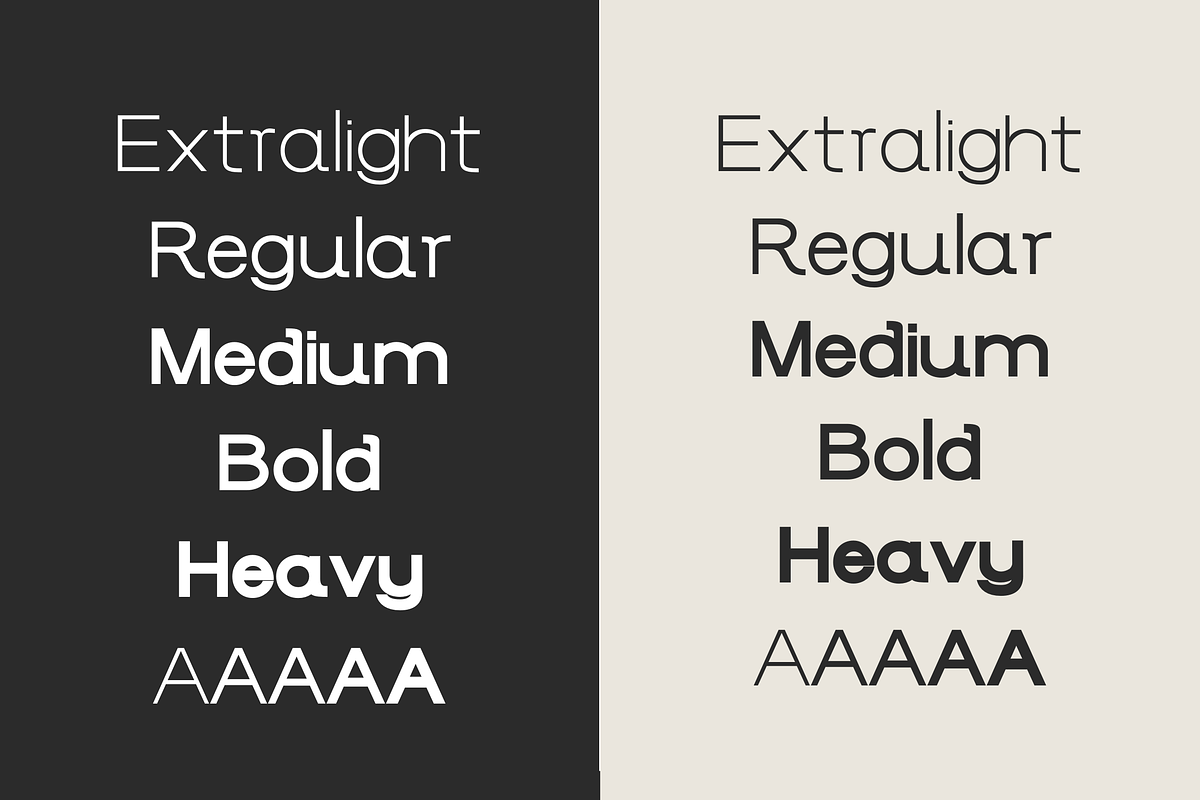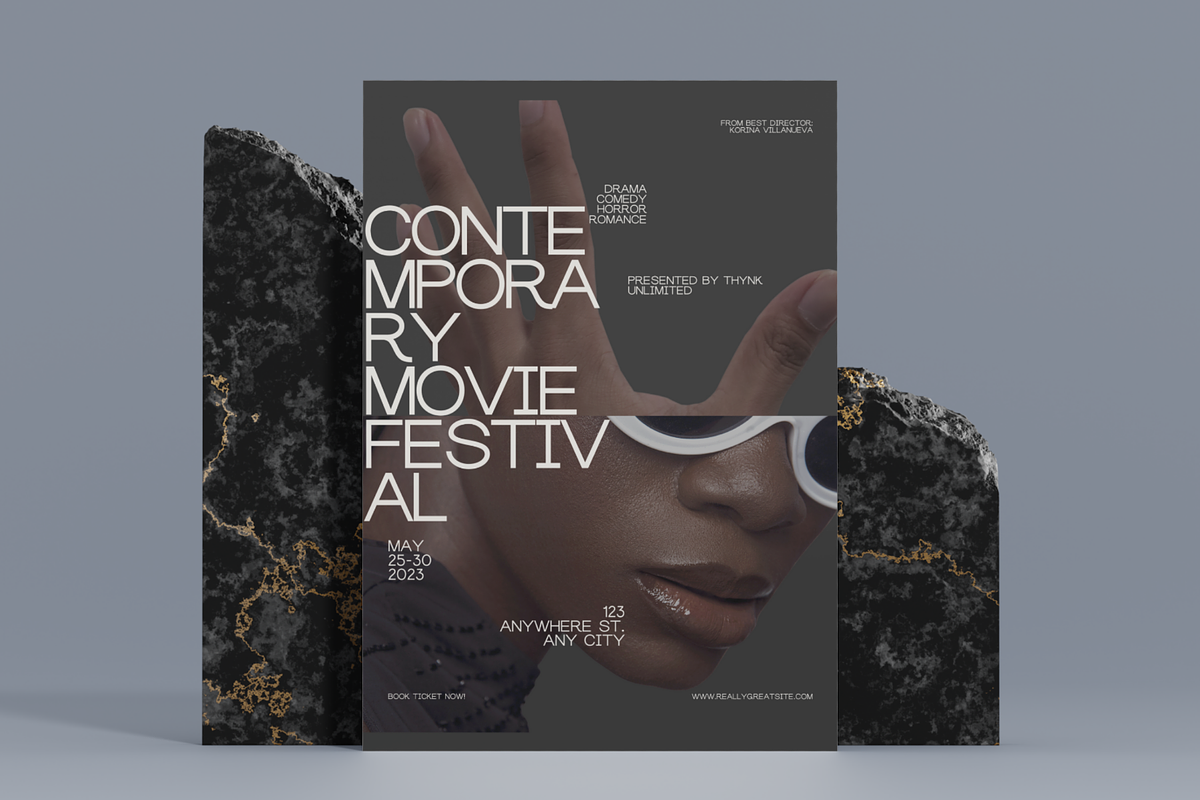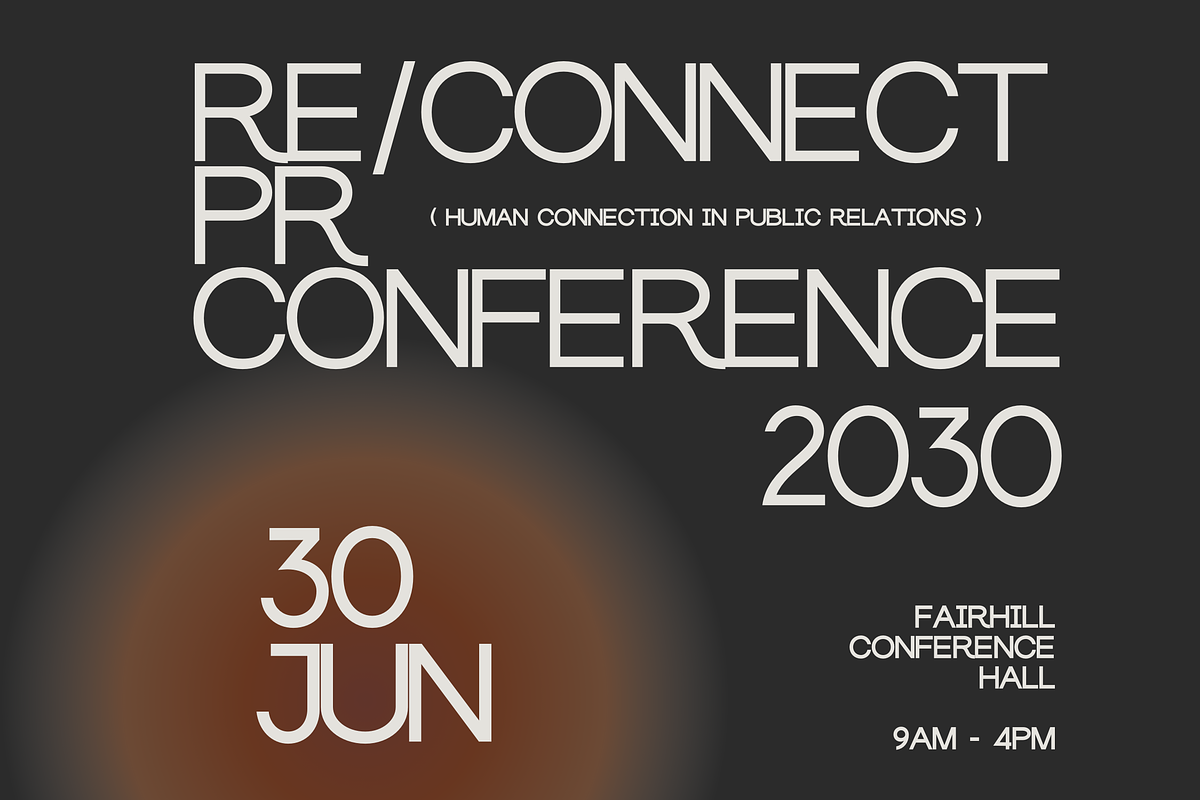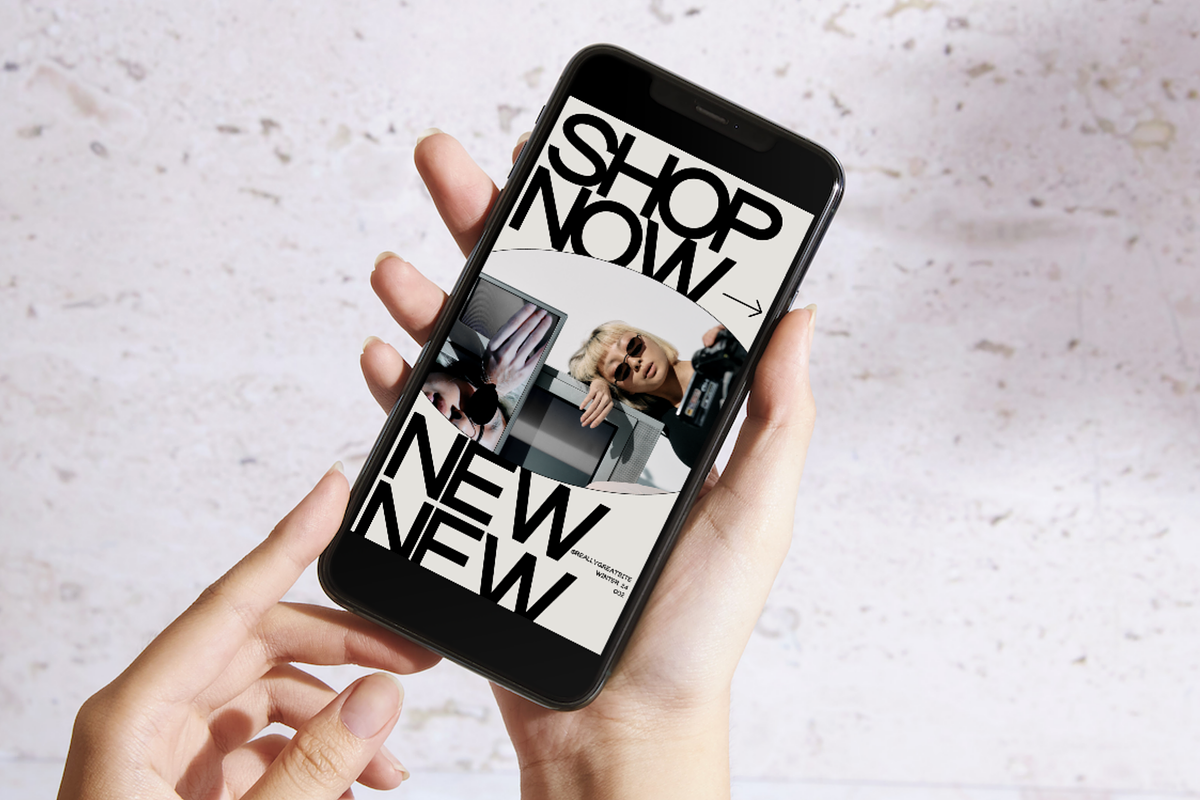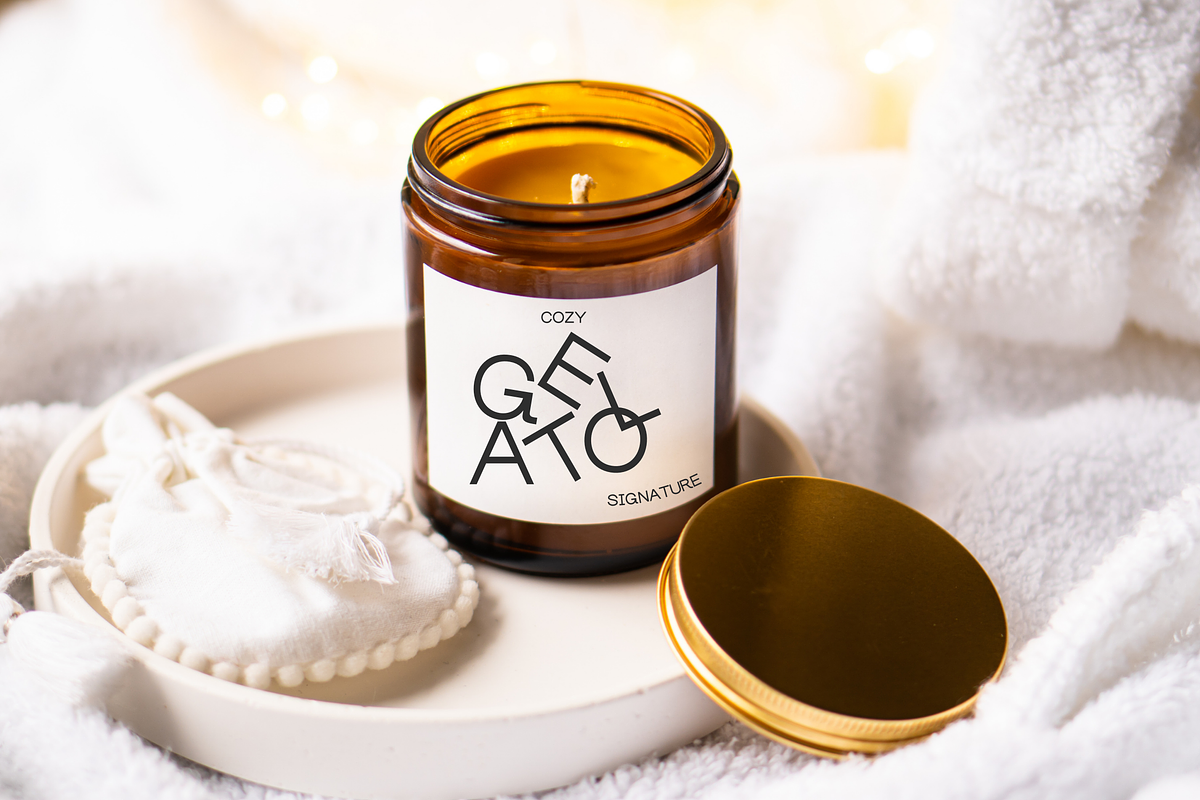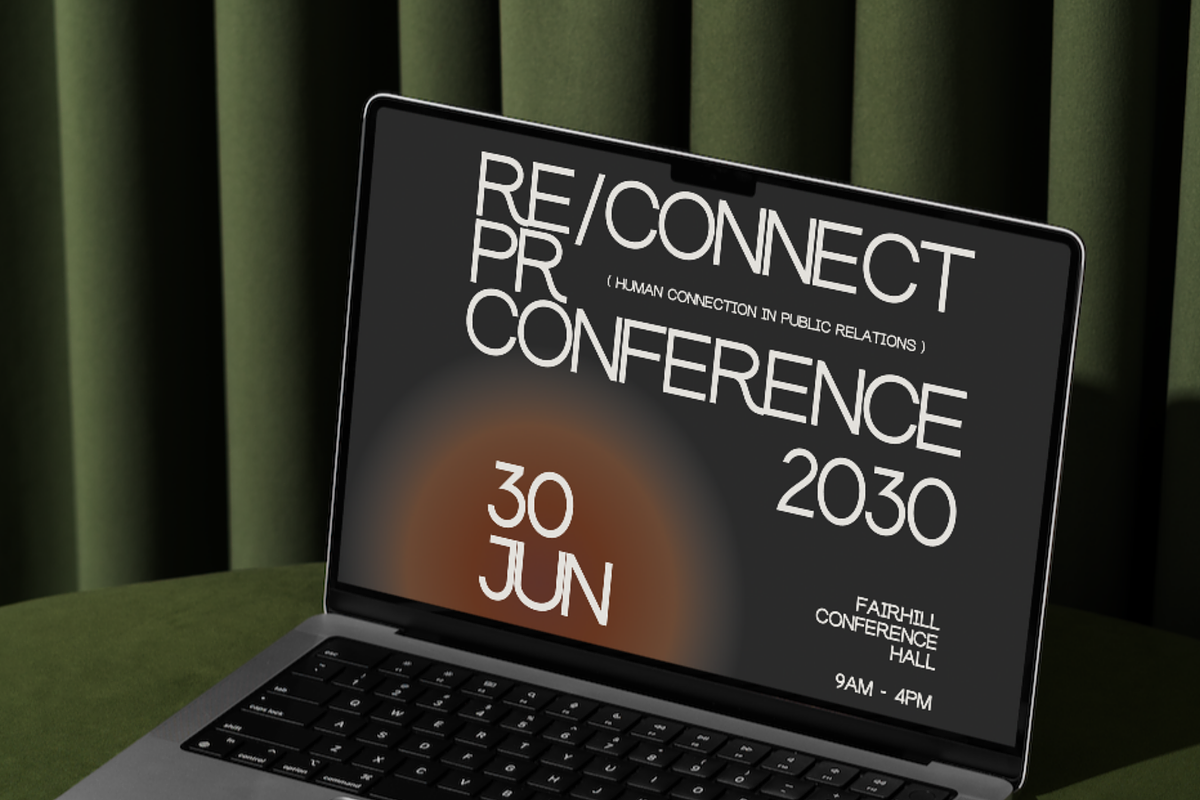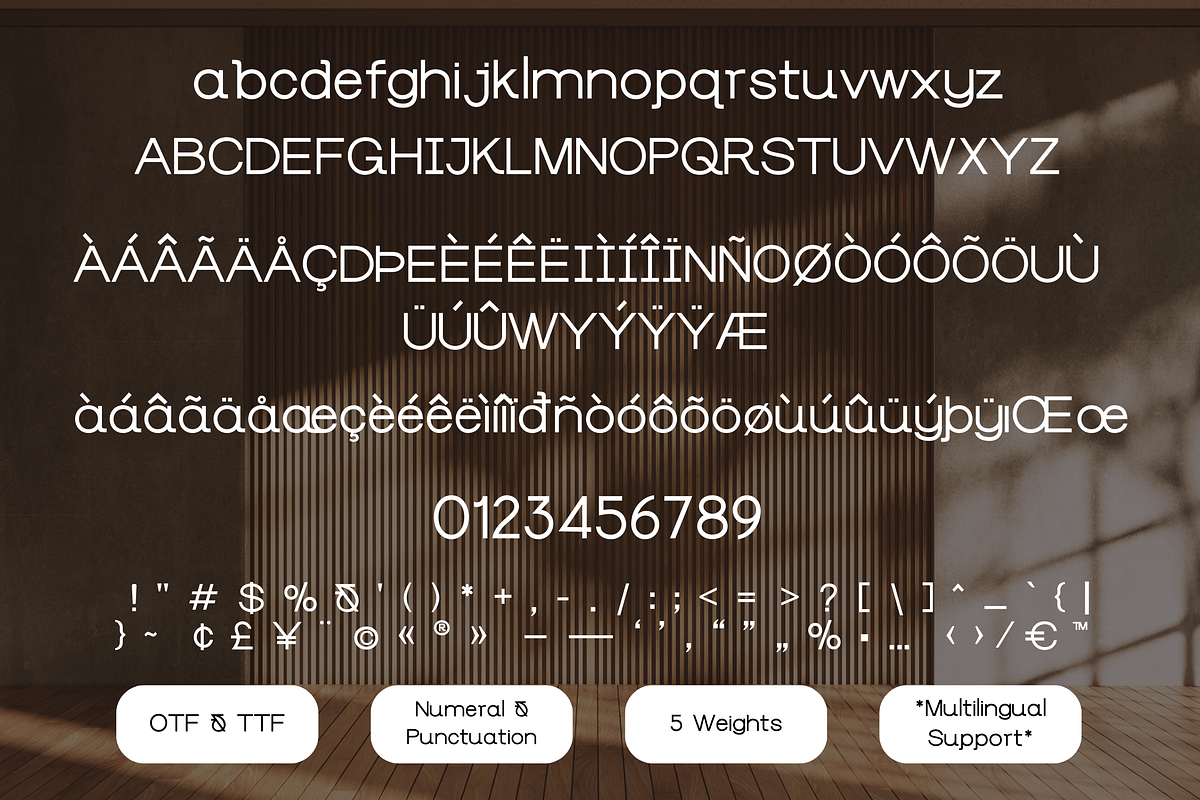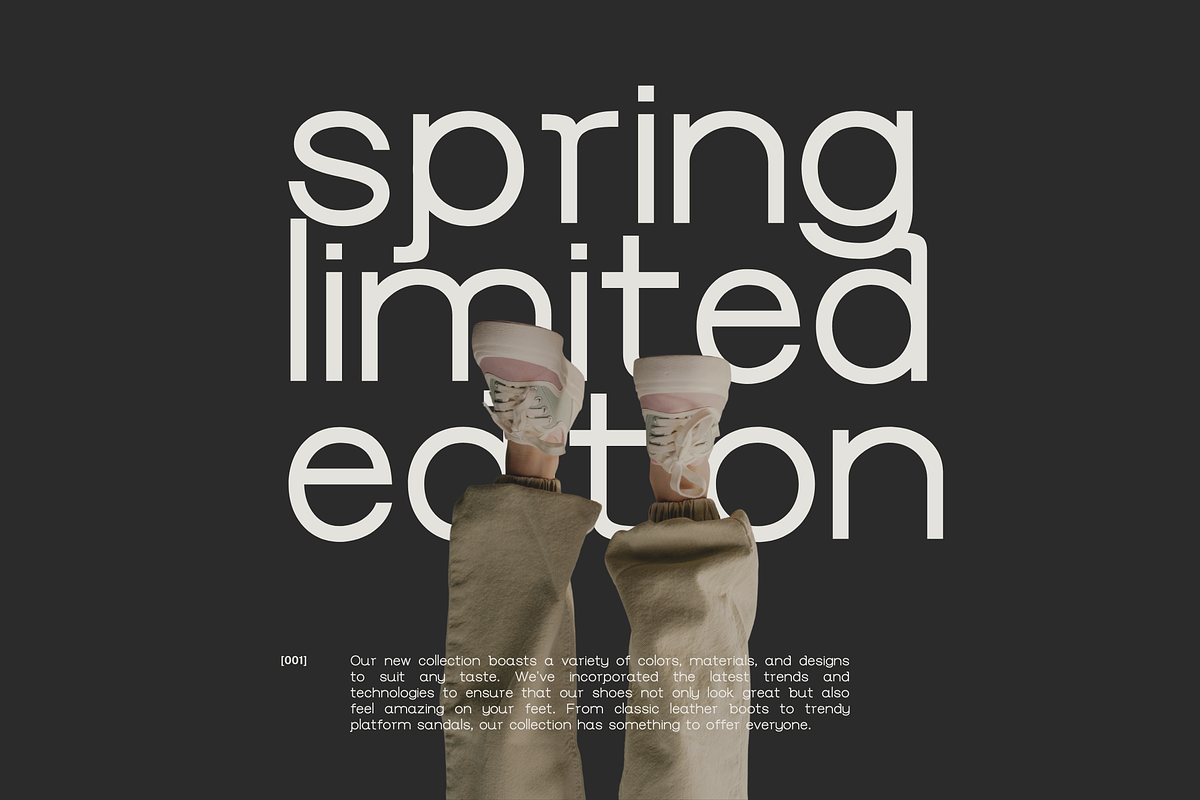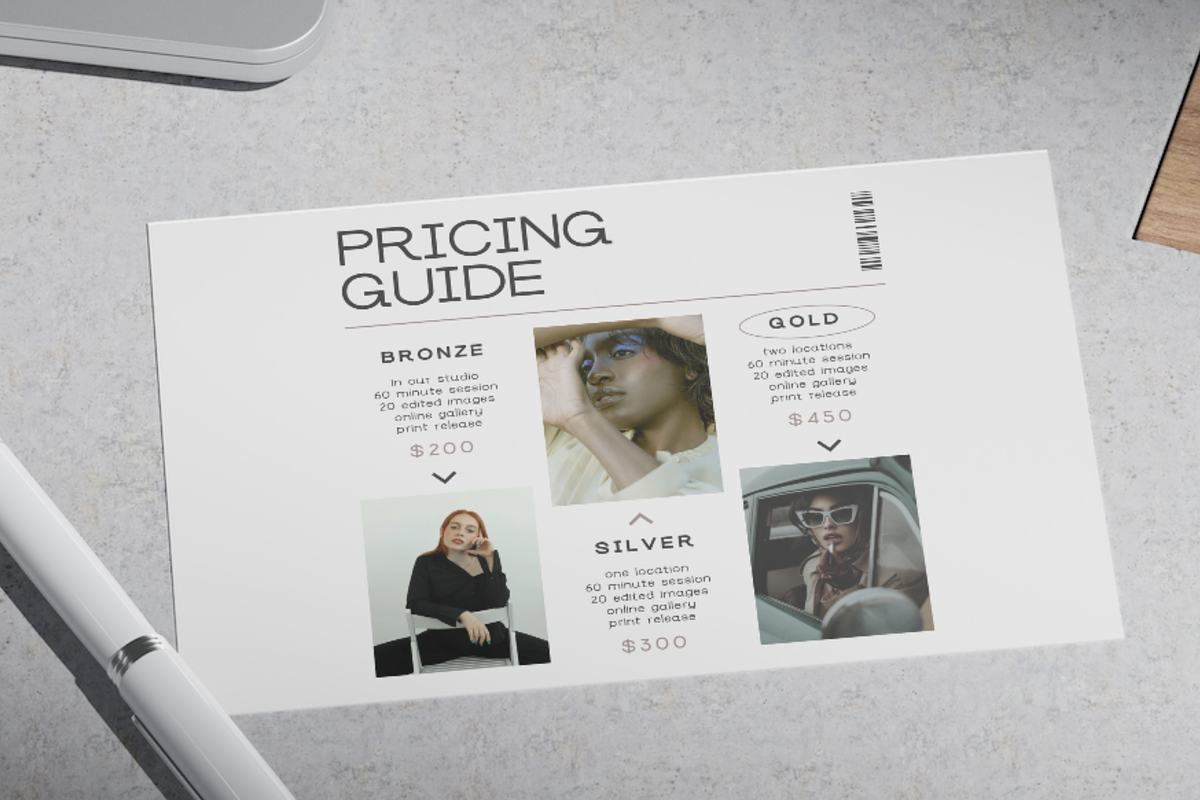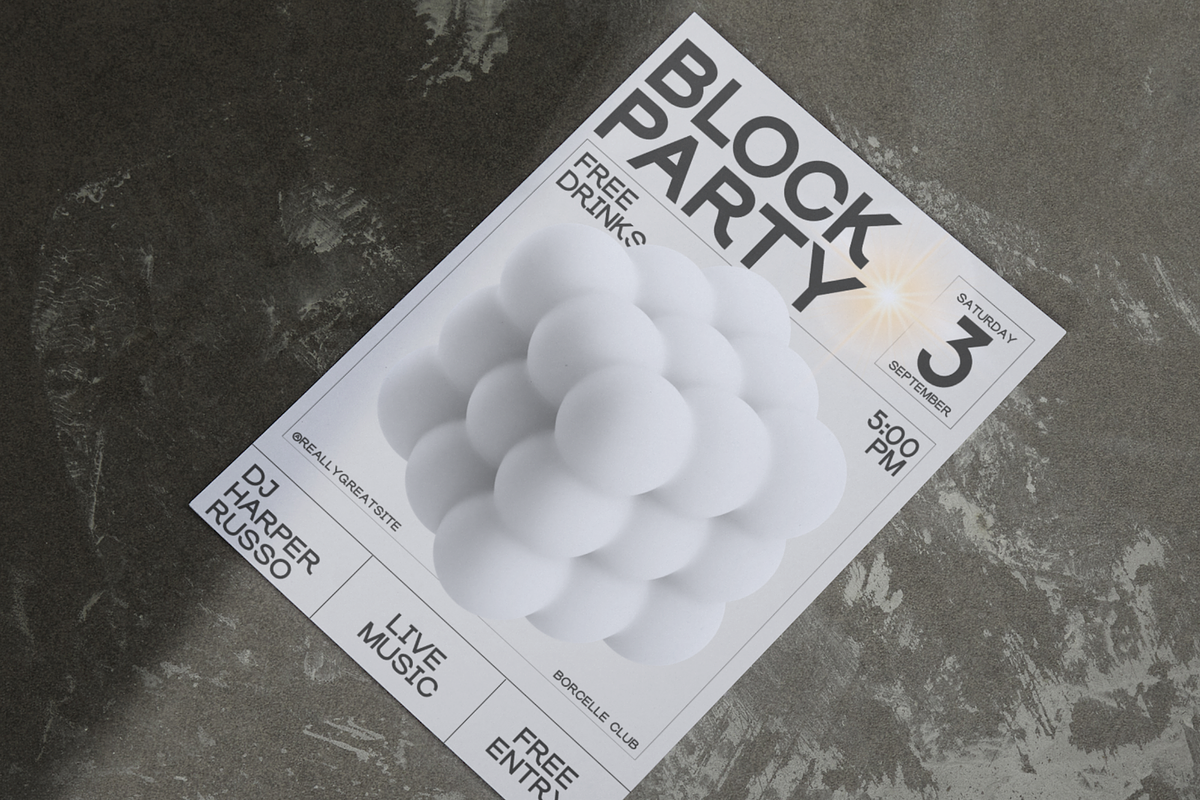
Cozy Gelato Sans | Geometric Sans
Say Hi to "Cozy Gelato Sans" font, a 5-weight geometric Sans Serif Font that is perfect uses as Product label Font, brand font, Handcrafted Packaging design font, Aesthetic Branding, Modern Logo or any type-oriented projects!
Perfect blends for your quotations, banners, logos, product packaging, titles, headers, Business cards, menu lists, and invitation cards!